Do You Want to Know About Our Selection of the Top 5 Branding Fonts in 2025? Okay, We’ll Tell You.
Let’s talk about something sneaky but oh-so-powerful in 2025: branding fonts. You know how you can spot a brand from a mile away just by its vibe? That’s typography doing the heavy lifting. It’s not just letters—it’s the soul of a brand, setting the tone before you even process the message. And this year? The font scene is buzzing. Trends are mixing old-school charm with cutting-edge flair, and it’s got everyone hooked. Why should you care? Because nailing the right branding font in 2025 could make your project unforgettable—or leave it fading into the background.
Fonts aren’t just decoration. They’re your brand’s personality in disguise. With 2025 in full swing, designers are raving about typefaces that feel bold yet authentic. Think quirky retro nods, elegant twists, and a splash of playfulness. These aren’t just for the pros—anyone can use them to make their brand pop. Imagine chilling with a pal, scrolling through social media, and stumbling on a design that screams, “That’s it.” That’s what great typography does. So, ready to check out the top five branding fonts ruling in 2025? They’re all up for grabs on platforms like MyFonts, Creative Market, Fontspring, or YouWorkForThem. Let’s get into it—you’re gonna love these.
Why Branding Fonts Matter in 2025
Why bother with fonts? They’re your brand’s first impression. A killer typeface says everything without saying anything. Well, not just since 2025, brands are using typography to spark feelings—nostalgia, boldness, you name it. Designers are mixing textures, weights, and vibes like never before. Ever wonder why some brands stick in your head? It’s the font pulling strings. This year, it’s all about typefaces with character and flexibility. What makes a font perfect for branding? It’s got to be unique, adaptable, and easy to find. These five nail it.
1. TT Biersal: The Rebel with a Cause
Say hello to TT Biersal, an absolute stunner from foundry TypeType. This font’s got attitude—think wild angles and a 1930s German poster vibe. It’s bold, quirky, and refuses to blend in. Designers in 2025 are obsessed with its energy. Why? It’s perfect for brands that want to shout their uniqueness. Picture it on a music festival flyer or a craft beer label. Ever wanted a font that feels alive? TT Biersal’s your guy. Its crazy italics add motion—pair it with something tame to keep it grounded.
2. Marsella: Elegance with a French Twist
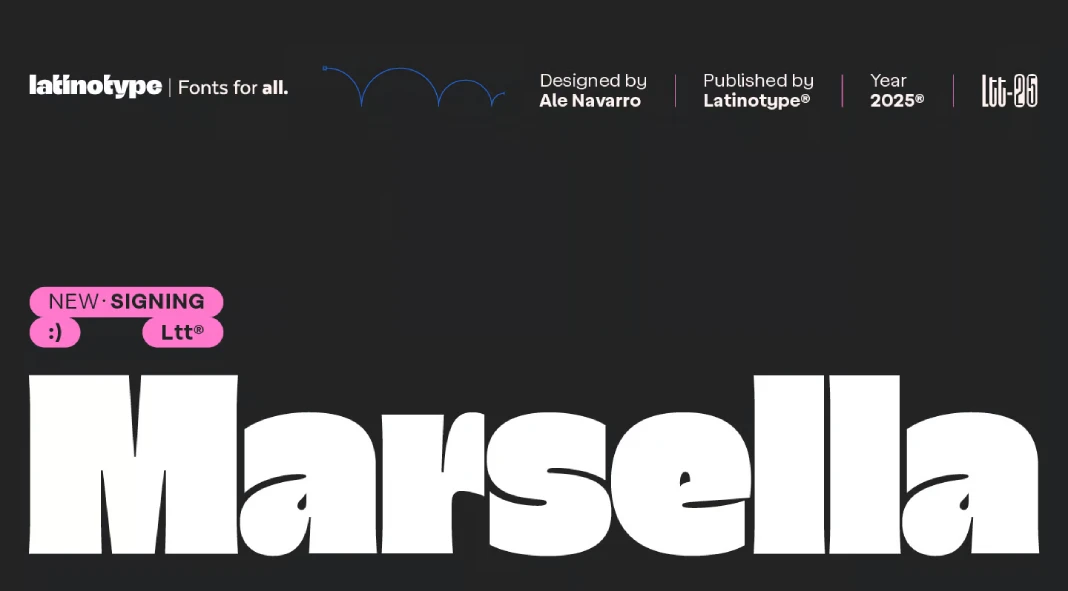
Next, Marsella, a stylish sans-serif from Latinotype. This one’s a humanist serif with a 1960s French flair—think chic and artisanal. It’s trending big in 2025 for its timeless sophistication. Brands craving that “ooh la la” vibe love it. It’s great for luxury logos or editorial spreads. Notice how some fonts feel effortlessly classy? That’s Marsella. Its soft curves and generous x-height make it a dream to read. Want your brand to ooze refinement? This one’s a no-brainer.
3. Glisstory: Sophistication Meets Versatility
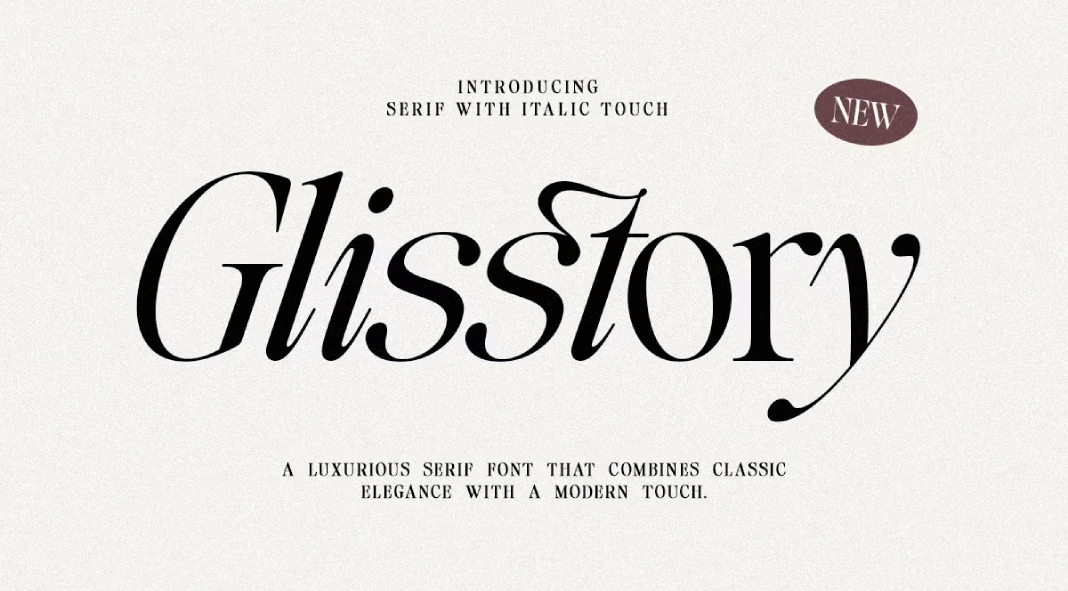
Now it’s time to talk about Glisstory from Pista Mova. This font’s high-contrast strokes and flowing curves scream luxury. In 2025, it’s a go-to for polished branding. Think high-end fashion or sleek websites. It’s got that “wow” factor without being loud. Ever seen a font that feels both classic and fresh? Glisstory pulls it off. Its true italics and OpenType extras let you get creative. Try it for a logo or headline—it’s a show-stealer.
Typography Trends Driving 2025’s Branding Fonts
Quick pause—what’s behind these picks? In 2025, typography’s all about mixing it up. Retro’s back, but with a modern spin. Variable fonts are everywhere—super flexible and fun. Authenticity’s key, too—handcrafted vibes are winning hearts. Sound like your thing? These trends reflect what’s clicking with people now. Picking a branding font means jumping on that wave. Pretty awesome, huh?
4. Joyse: Retro Playfulness Done Right
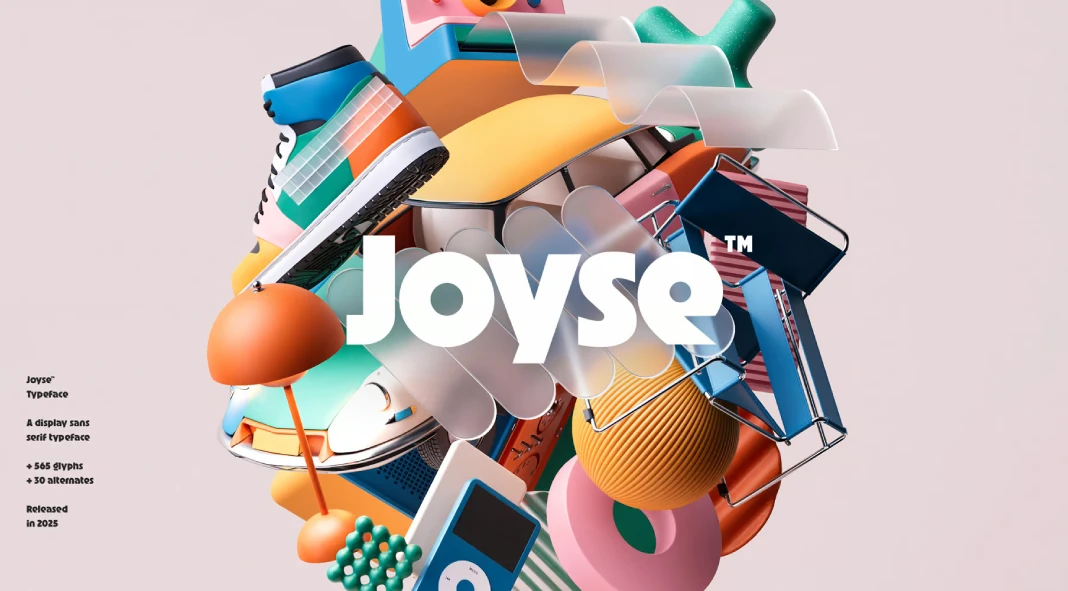
Designed and published by Almarena, Joyse is a display sans-serif with retro charm. This 2025 newbie’s got a playful edge that’s perfect for bold brands. It’s quirky yet versatile, ideal for startups or fun packaging. Ever wanted a font that feels like a party? Joyse brings it. Its funky shapes and modern twist make it stand out. Think social media graphics or a cheeky logo. Pair it with something sleek, and you’ve got magic.
5. Take Me to Tuscany: Romantic Curves for Days
Last up, Take Me to Tuscany is a handwritten beauty—elegant, curvy, and full of Italian romance. It was designed by Nicky Laatz. In 2025, it’s a hit for brands wanting warmth. Picture it on a wine label or wedding invite. Love that personal, swoony feel? This font’s got it. Its delicate flourishes add a dreamy touch. Use it for logos or headers—it’s like a love letter in type form.
How to Pick the Perfect Branding Font for You
So, how do you choose? Start with your brand’s vibe. Loud and edgy? TT Biersal’s your match. Classy and calm? Marsella or Glisstory. Fun and fresh? Joyse or Take Me to Tuscany. Check versatility—will it shine on a poster and a website? These five do. They’re all on MyFonts or Creative Market, so no stress finding them. Ask yourself: What’s my brand’s story? Play with them. Mix them up. Which one feels like home?